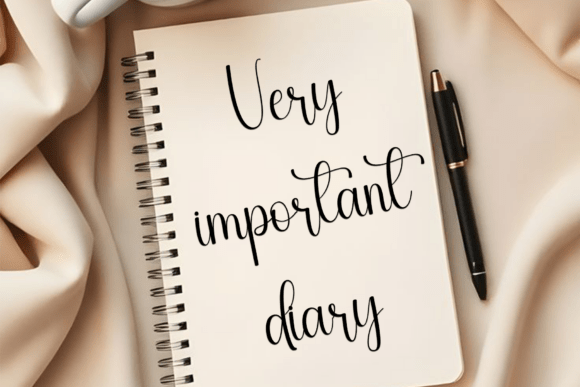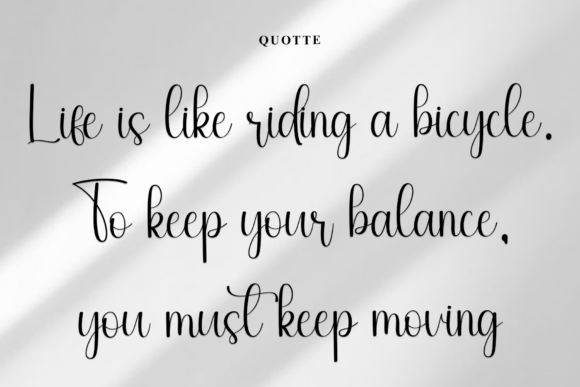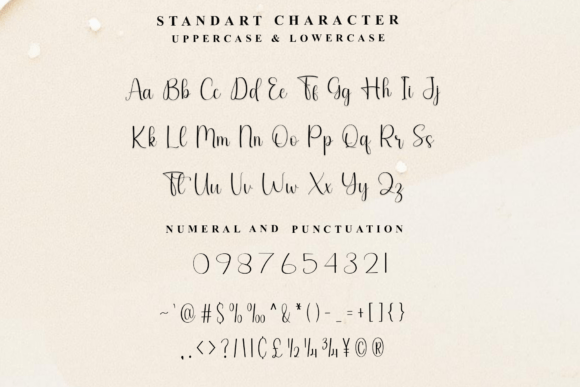
Introducing Grade Student Font: A Festive and Merry Typeface for the Holiday Season
Are you looking for a font that captures the spirit of the holiday season? Do you want to add a touch of magic to your designs and make them stand out? Look no further than Grade Student Font, a festive and merry typeface that’s perfect for greeting cards, gift tags, and holiday-themed projects.
A Decorative and Whimsical Font
Grade Student Font is a decorative font that’s designed to bring a cheerful and nostalgic ambiance to your words. With its whimsical flair and enchanting elements, this font is sure to add a touch of wonder to your designs. Whether you’re creating holiday greeting cards, gift tags, or festive posters, Grade Student Font is the perfect choice.
Grade Student Font is specifically designed for holiday-themed projects. Its festive and merry design makes it perfect for Christmas, Hanukkah, or any other winter holiday. You can use it to create:
- Holiday greeting cards that will make your loved ones feel special
- Gift tags that will add a personal touch to your presents
- Festive posters that will announce your holiday party or sale
- Social media posts that will spread holiday cheer
- Swashes and flourishes that add a touch of elegance to your designs
- Ligatures that create a beautiful, connected look
- Glyphs that add a whimsical touch to your text
Why Choose Grade Student Font?
There are many reasons why Grade Student Font is the perfect choice for your holiday designs. Here are just a few:
- Unique and festive design: Grade Student Font has a unique and festive design that’s sure to make your designs stand out.
- Versatile: Grade Student Font is perfect for a wide range of holiday-themed projects, from greeting cards to posters.
- Nostalgic ambiance: This font brings a cheerful and nostalgic ambiance to your words, making it perfect for holiday designs.
Tips for Using Grade Student Font
Here are a few tips for using Grade Student Font in your designs:
- Use it sparingly: While Grade Student Font is festive and fun, it can be overwhelming if used too much. Use it sparingly to add a touch of magic to your designs.
- Experiment with colors: Grade Student Font looks great in a variety of colors, from traditional holiday colors like red and green to more modern colors like blue and purple.
- Pair it with other fonts: Grade Student Font pairs well with other fonts, such as sans serif fonts or script fonts. Experiment with different pairings to find the one that works best for your design.